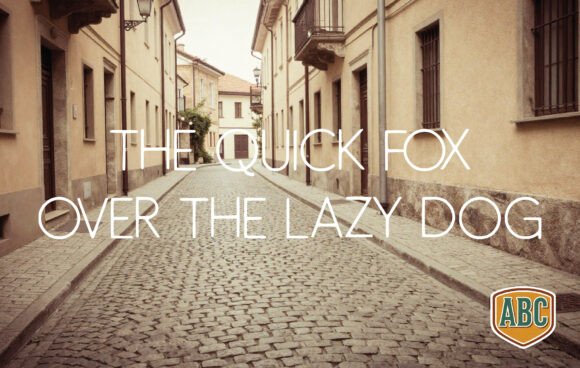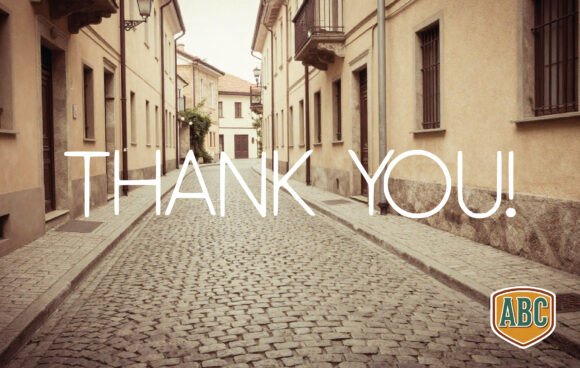
Introduction to Light Stee Font
Achieve a look of understated modernism with Light Stee, a minimalist display font that balances architectural precision with a soft, human touch.
This typeface features tall, thin letterforms and a clean, monolinear weight, creating an airy aesthetic that feels both spacious and sophisticated Light Stee is defined by its slightly irregular, โhand-drawnโ edges, which prevent the geometric structure from feeling too clinical or rigid.
Key Features of Light Stee Font